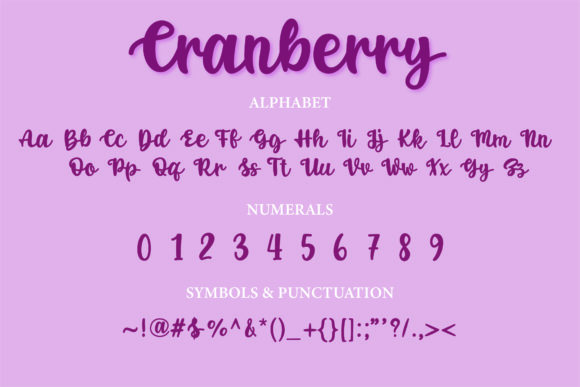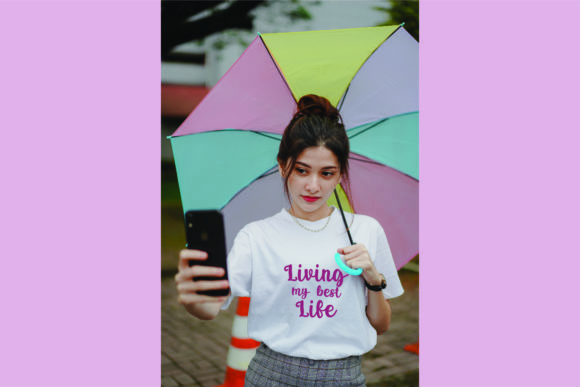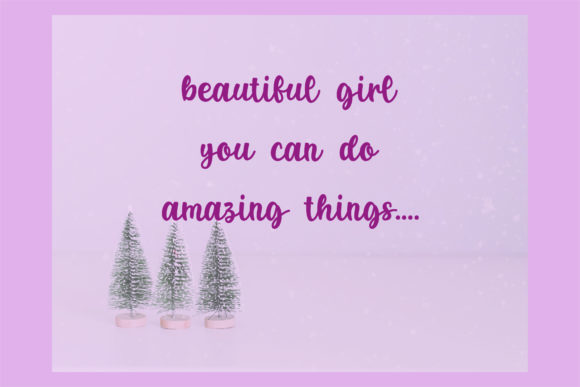
About Cranberry Font
Cranberry is a lovely and delicate script font that exudes elegance and class. This font was particularly crafted for those who need a beautiful and refreshing look to their designs.